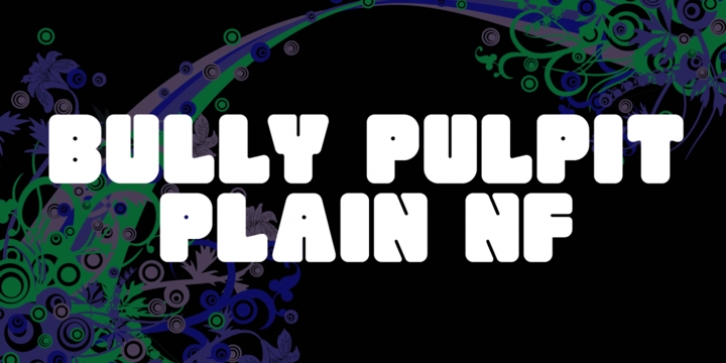
This engaging headline face is based on a rather pudgy typeface named “Bullion Shadow”, which was originally released somewhere on the cusp between the hippie and disco eras, and was equally at home in both. Now available in shaded and plain. Both versions of this font support the Latin 1262, Central European 1250, Turkish 1254 and Baltic 1257 codepages.